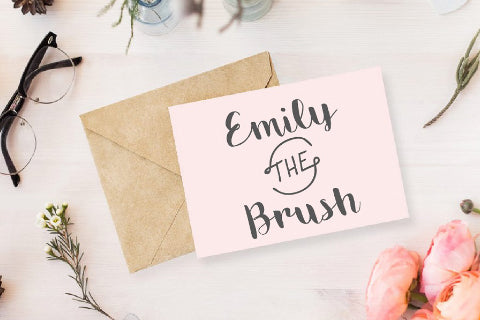
Today we're glad to feature this free emily brush typeface. Go give some love to Free Design Resources for creating this top-notch free font. You can create a professional designs with this fancy font.